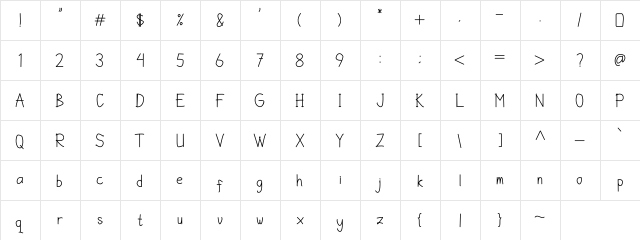
Kinley Book
Design Context for Kinley Typeface
Kinley is a composed and adaptable typeface that performs quietly and consistently across a wide range of design contexts.